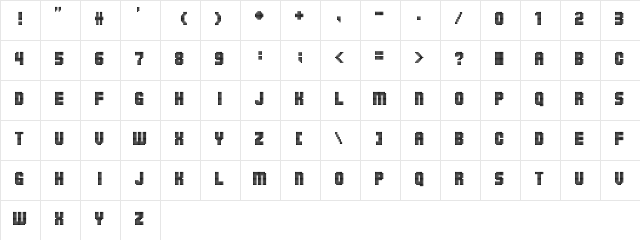
Balls on the rampage Regular
Balls on the rampage Family
Balls on the rampage Regular
Design Context for Balls on the rampage
Balls on the rampage is a composed and adaptable typeface that performs quietly and consistently across a wide range of design contexts.